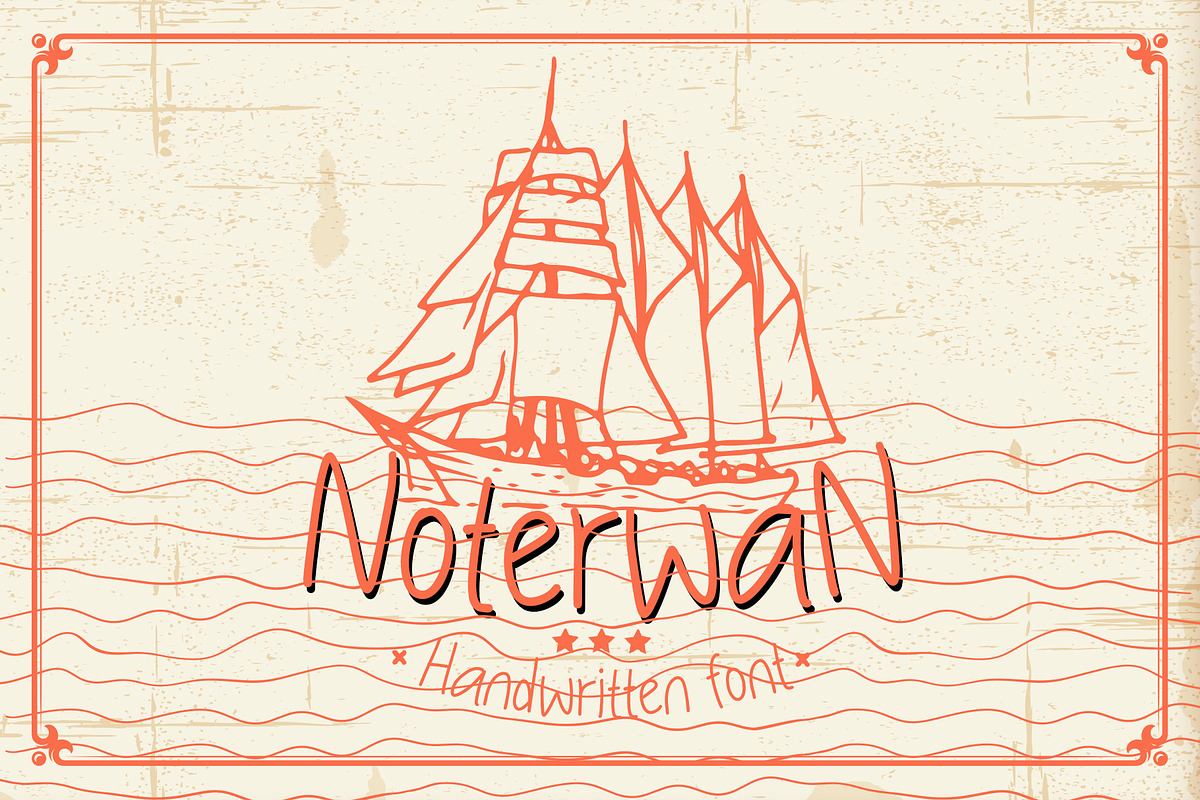
Noterwan A Handwritten Font Free Download
Noterwan A Handwritten Font Free Download is a stylish and organic handwritten typeface that brings a natural, personal touch to your designs. With its fluid strokes and unique letterforms, this font is ideal for projects that require a casual, yet refined, feel—such as invitations, branding, greeting cards, social media posts, and more.
Noterwan A Handwritten Font Free Download combines the charm of handwritten script with readability, making it perfect for both creative and professional uses. Whether you’re designing for a personal brand, a special event, or a creative project, this font adds a genuine, artistic flair.